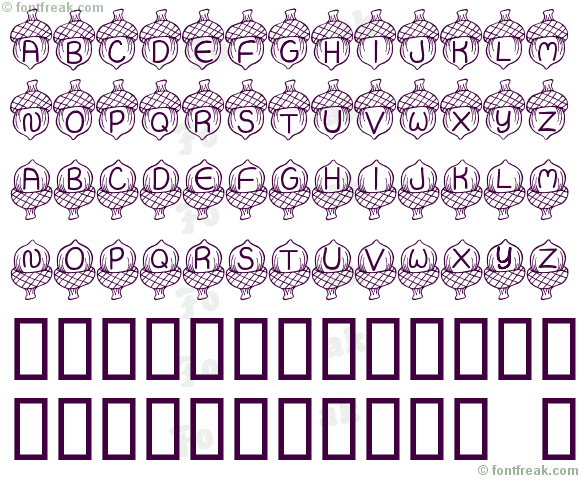
JI Acorn
About JI Acorn
The JI Acorn font, crafted by Jeri Ingalls, is a delightful display typeface that brings a whimsical touch to any design project. With its playful character shapes and unique acorn-inspired design, this font stands out in the realm of decorative typography. The font features a moderate stroke weight with consistent contrast, giving it a friendly and approachable feel. Its spacing is thoughtfully designed, allowing for clarity and ease of reading, while the decorative elements, such as the acorn motifs integrated into the letters, add a charming flair.
This font is particularly well-suited for a variety of creative applications. It shines in wedding invitations, where its playful yet elegant style can evoke a sense of joy and celebration. Additionally, JI Acorn is perfect for children’s book covers, where the whimsical nature can capture the imagination of young readers. Restaurant menus can also benefit from its unique characteristics, making dishes appear more inviting. Moreover, graphic designers looking to create eye-catching posters or promotional materials will find this font an excellent choice, as it draws attention while maintaining readability.
What truly sets the JI Acorn font apart is its ability to blend playful design with functionality. This font not only adds a touch of creativity to your work but also remains practical for various uses. For those interested, the JI Acorn font free download is readily available, inviting you to explore its unique charm in your next design endeavor.